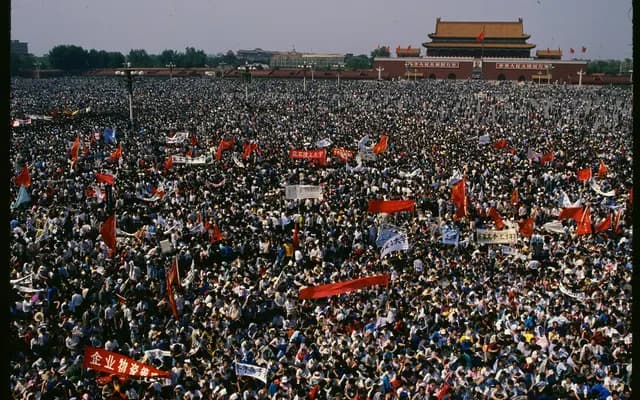
VTC Tank Man
A display typeface drawn from protest banners carried during the 1989 Tiananmen Square demonstrations, part of Vocal Type's ongoing series connecting type history to political movements.
The letterforms are sourced from two banners photographed from multiple angles during the peaceful 1989 Tiananmen Square protests in Beijing, one carrying the phrase 'Give me democracy or give me death.' The trial version incorporates a torch adapted from features of both the banner lettering and the student-built Goddess of Democracy sculpture that was destroyed by military vehicles on 4 June 1989. Like other Vocal Type releases, it situates typeface design within a specific historical and political context, making the act of using the font an engagement with that history.
The typeface is drawn from protest banner lettering photographed at the 1989 Tiananmen Square demonstrations, placing it firmly in the display category as a historically derived, expressive hand-lettered sans.